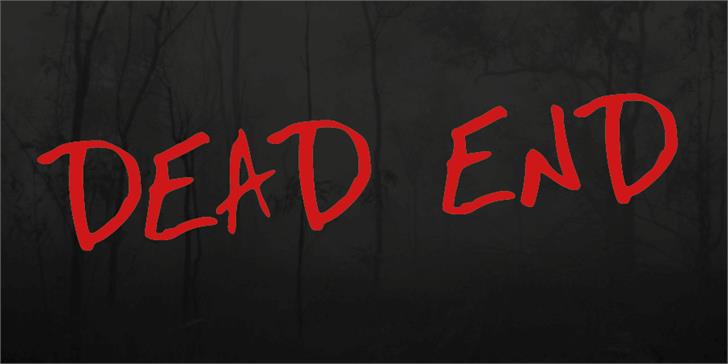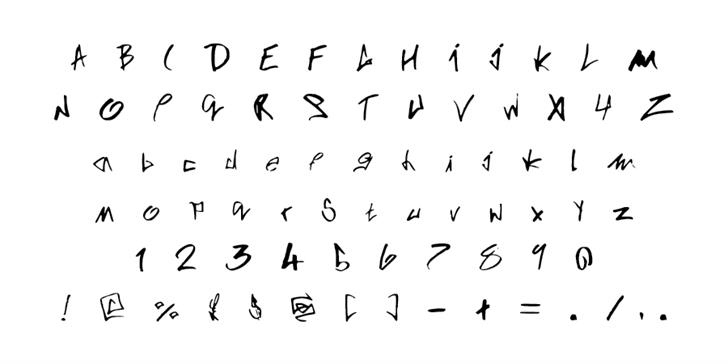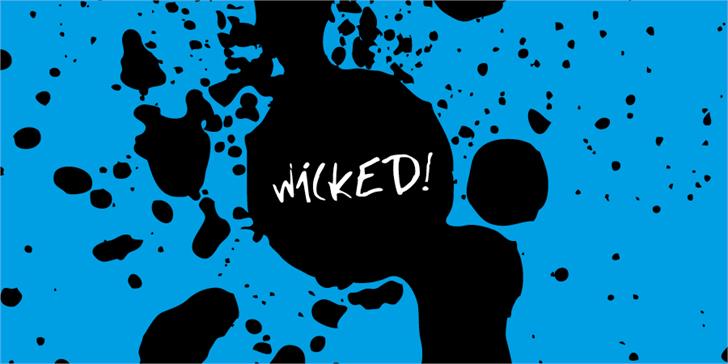
Dead End Font
About Dead End Font
Graffiti, hand written / horror film TV series inspired font. Think the ‘Evil Dead’, ‘The Walking Dead’ and creepy pasta stories with graffiti twist.